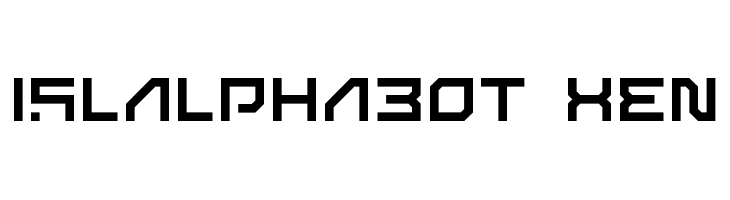
( Isurus Labs - Derik Schneider )
A futuristic, geometric font with sharp angles and a bold, cohesive design.
( Isurus Labs - Derik Schneider )
A geometric, angular font with a modern, industrial style.
( Isurus Labs - Derik Schneider )
A modern, geometric font with clean lines and a structured appearance.
( Isurus Labs - Derik Schneider )
A pixelated, blocky font with a retro digital style.
( Isurus Labs - Derik Schneider )
A pixelated, grid-based font with a retro digital aesthetic.
( Isurus Labs - Derik Schneider )
An edgy, chaotic font with sharp angles and dynamic strokes.
( Isurus Labs - Derik Schneider )
A pixelated, monospaced font with a retro digital aesthetic.